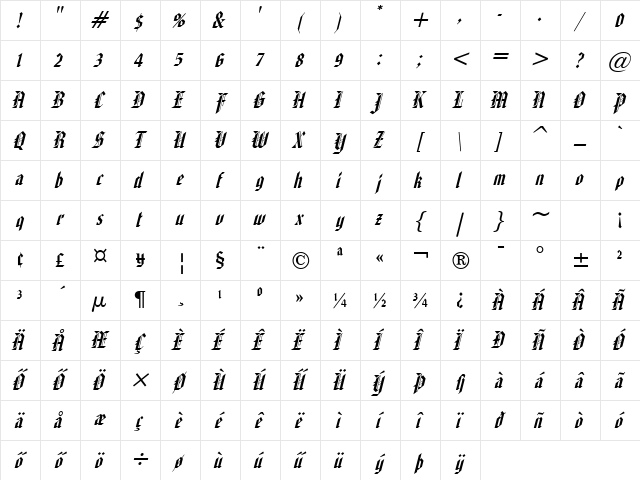
Complete American-Text HU Italic glyph index. Displaying only characters natively supported by American-Text HU Italic font.
American-Text HU is a composed and adaptable typeface that performs quietly and consistently across a wide range of design contexts. The slanted form adds forward momentum and visual energy.